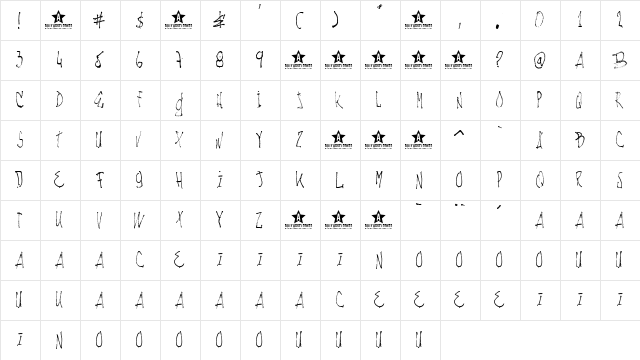
NACHOS & TV Light
| Foundry | Billy Argel |
| Designer | Billy Argel |
Design Context for NACHOS & TV Typeface
NACHOS & TV is a composed and adaptable typeface that performs quietly and consistently across a wide range of design contexts. The delicate stroke weight brings airiness and refinement to layouts.